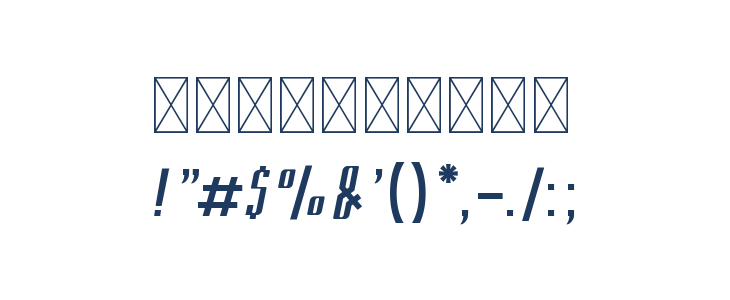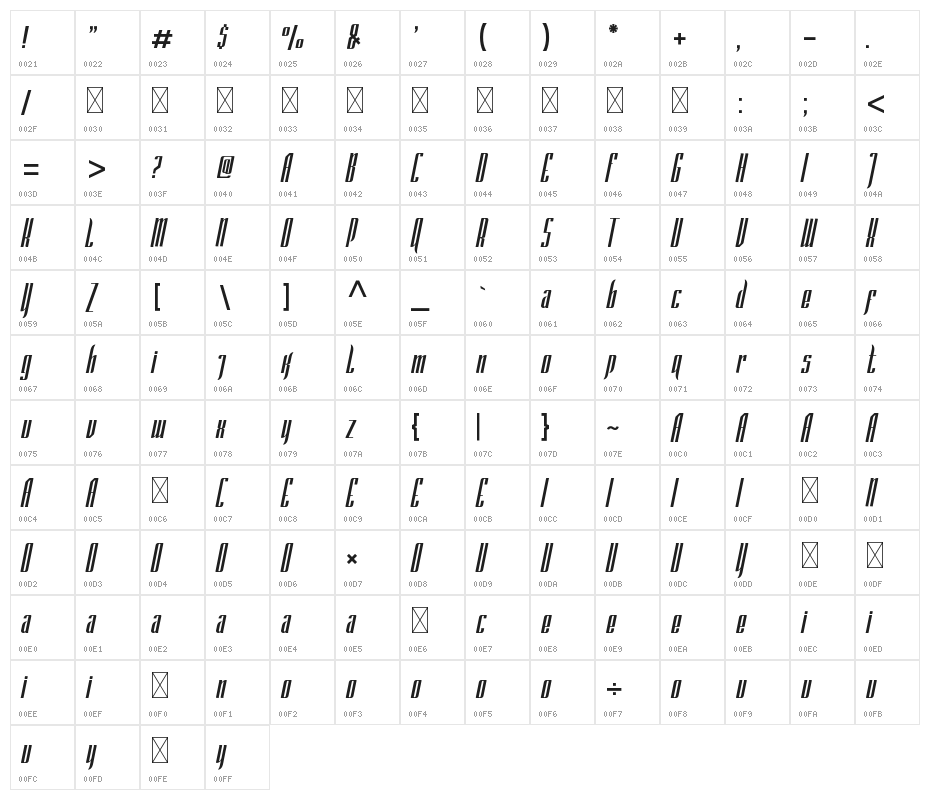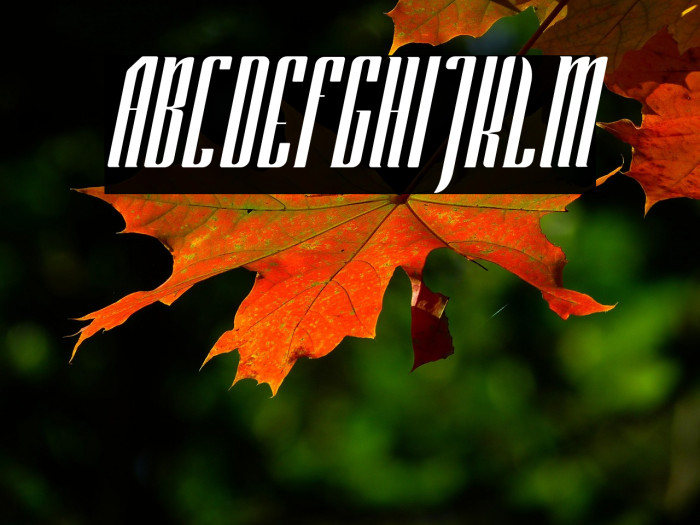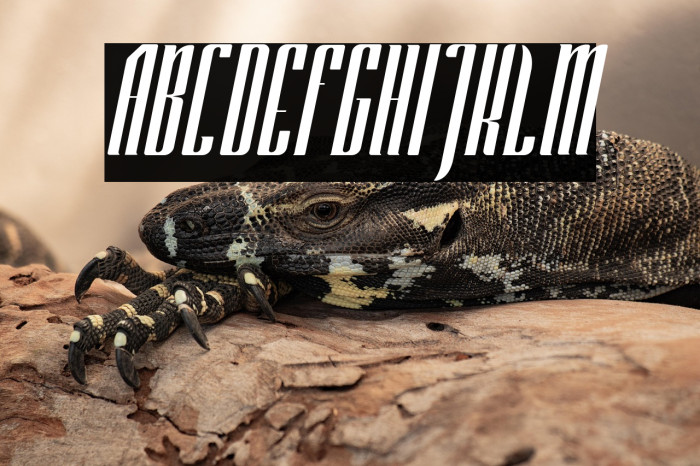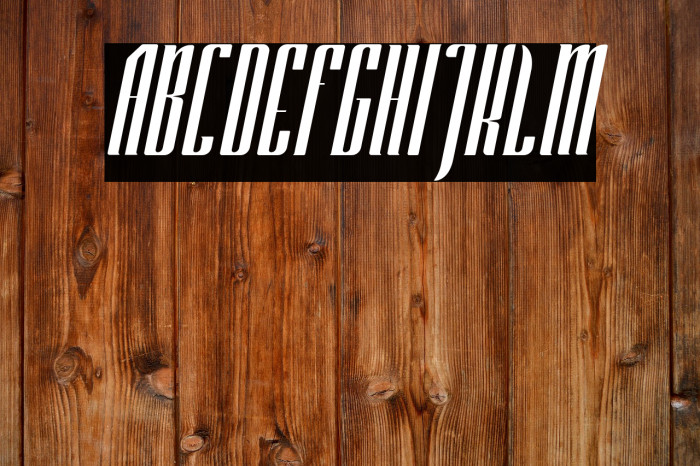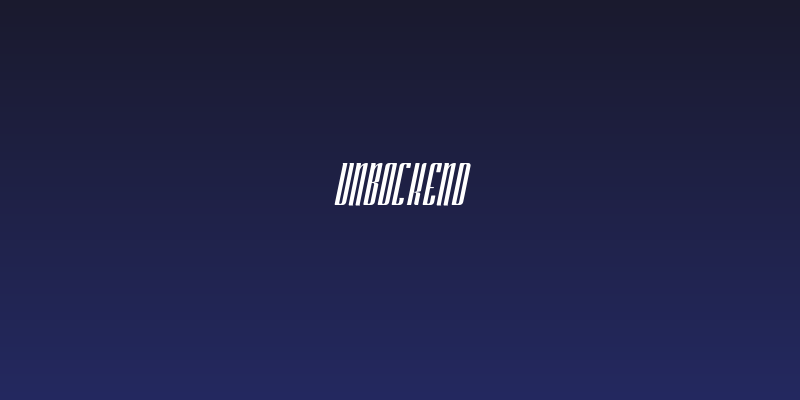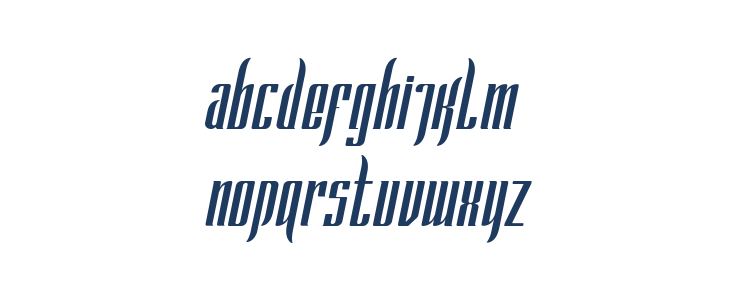
Unbockend Font
Unbockend Description
This font features a bold and dynamic design with a strong emphasis on vertical lines. The characters are elongated and slightly condensed, giving them a sleek and modern appearance. The uppercase letters are particularly striking, with sharp angles and a sense of movement. The lowercase letters maintain the same dynamic style, creating a cohesive look across the typeface. The numbers and special characters are designed to match the overall aesthetic, ensuring consistency throughout. This font is ideal for projects that require a bold and impactful visual statement.
| Proposed Projects | Ideal for branding, posters, and headlines that require a strong visual impact. |